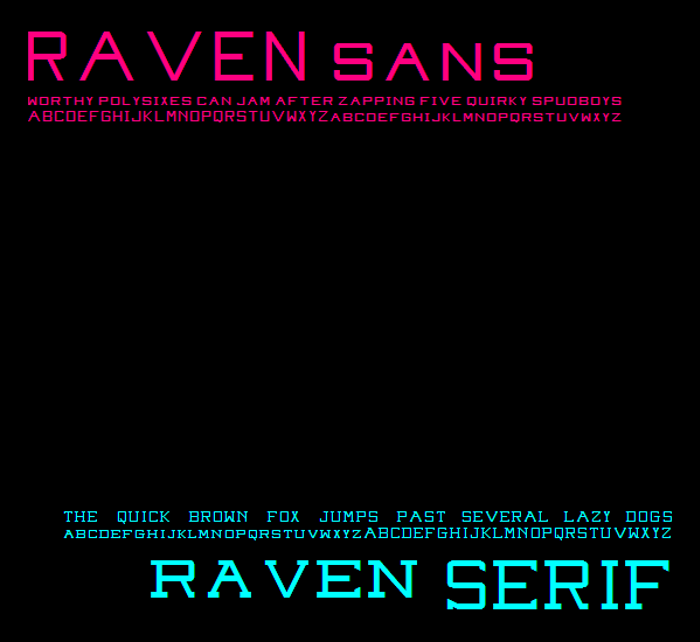
Raven Sans NBP Font
Raven Serif NBP Style
A smallcaps typeface inspired by Bank Gothic. Comes in Serif and Sans-Serif.
Changes in Version 1.2:
-Fixed spacing issues with X and Y
-Fixed Raven Sans's uppercase R
-Added Cyrillic and Greek characters to Raven Sans